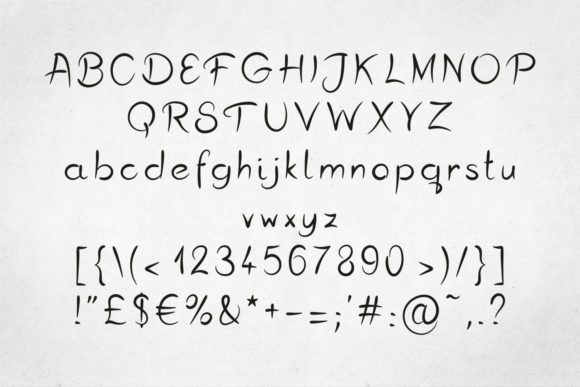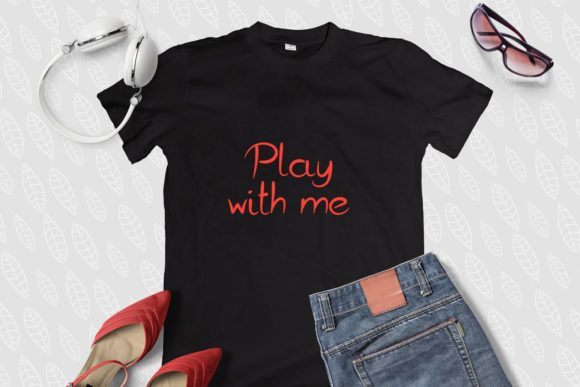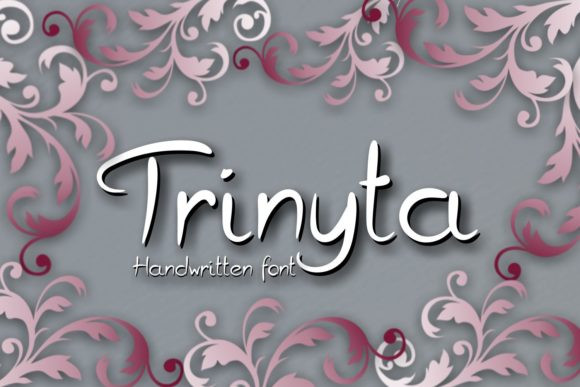
Trinyta Font
Trinyta is a fun and cool handwritten font with incredible style. It’s the perfect font for adding a smart and cool feel to any design project.